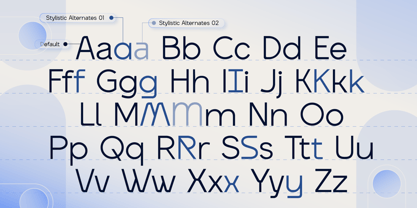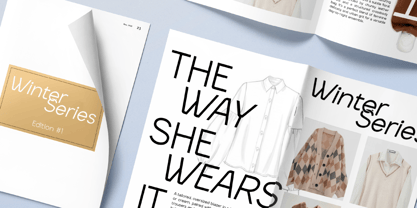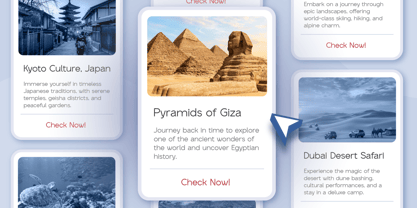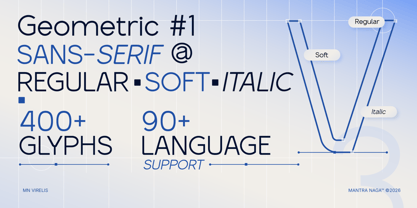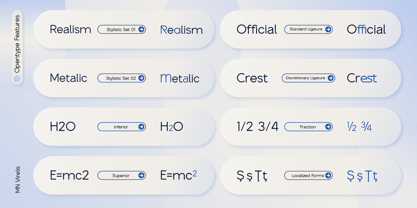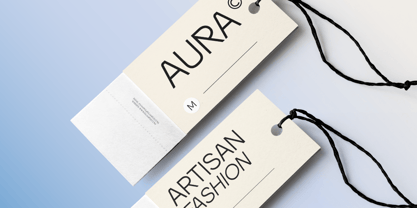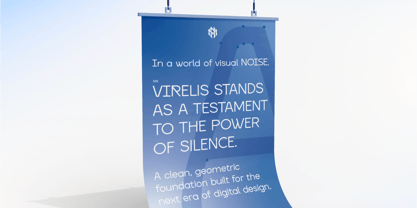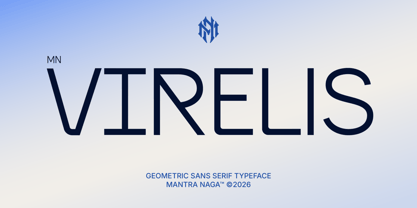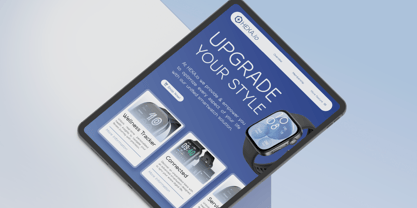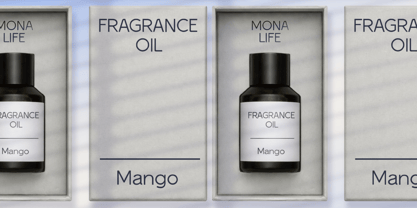
MN Virelis
The MN Virelis Font Family was designed by Fredo Eka Pratama and published by Mantra Naga Studio. MN Virelis contains 4 styles and family package options. More about this family
MN Virelis is a sans serif typeface with a modern geometric foundation and a minimalist aesthetic. Its balanced proportions, precise line work, and exceptionally clean appearance make it an ideal choice for contemporary design projects that prioritize clarity and simplicity.
Designed for minimal and modern branding, UI and UX design, digital interfaces, architectural and interior branding, as well as presentation systems and structured layouts. The core direction is to establish a timeless modern sans serif that feels professional, refined, and highly versatile across a wide range of applications.
With carefully crafted spacing and a disciplined construction, MN Virelis delivers a calm and controlled visual rhythm, enhancing readability while maintaining a strong visual identity. Its subtle character details prevent it from feeling overly rigid, giving it just enough personality to stand out without compromising neutrality—making it a reliable foundation for both expressive and system-driven design work.